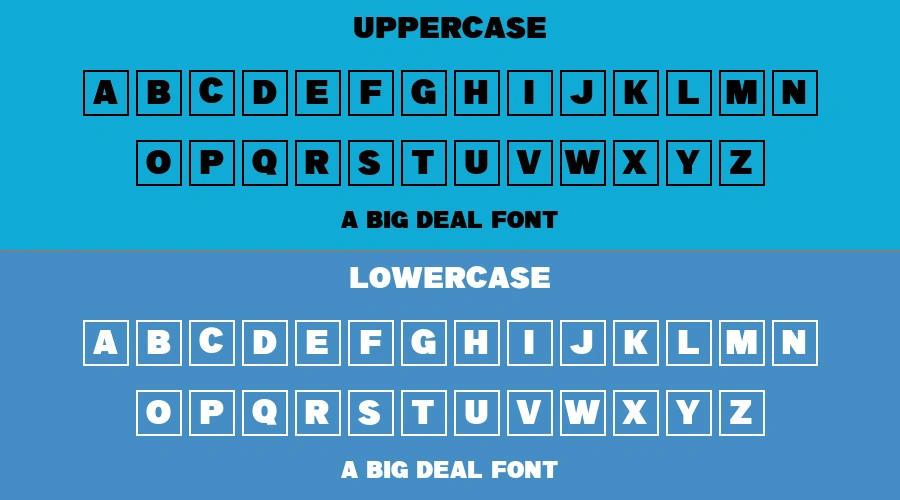
About A Big Deal Font
Designed with precision, A Big Deal Font merges organic forms with sophistication in every character. This versatility makes it particularly effective for formal announcements, where sophistication and application safety directly impact communication quality. Each letterform demonstrates meticulous craftsmanship.
Technical excellence shines through elements like high x-height and superior letters, enhancing typographic versatility. In heritage publications settings, A Big Deal Font proves its worth through superior headline impact. The thoughtful execution of curve radius and industrial acceptance ensures professional results.